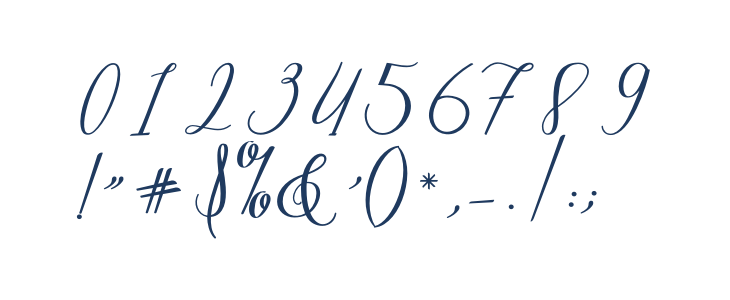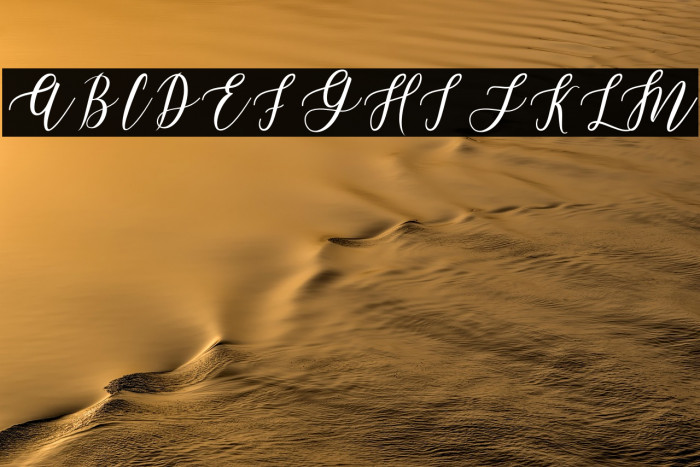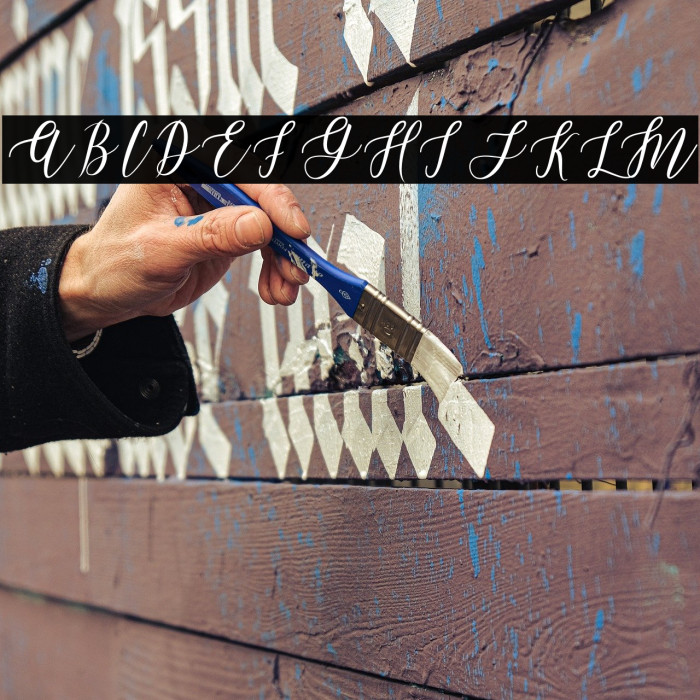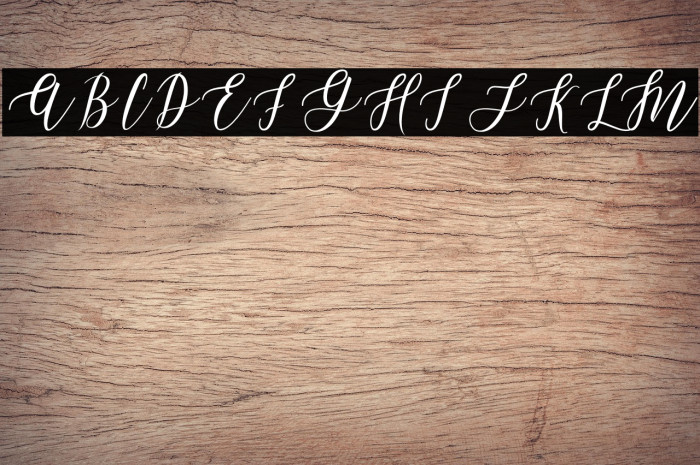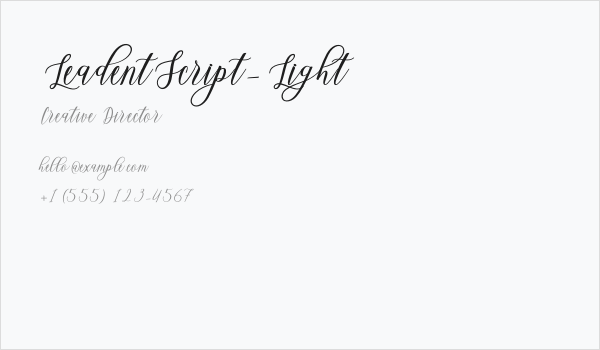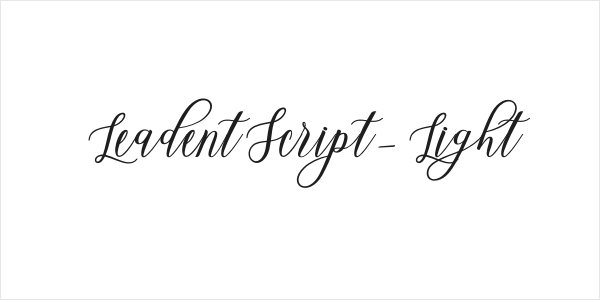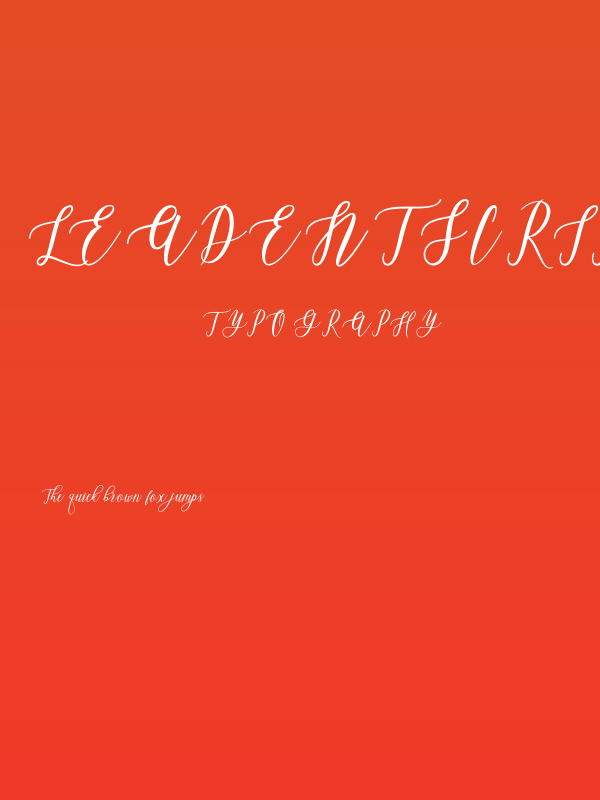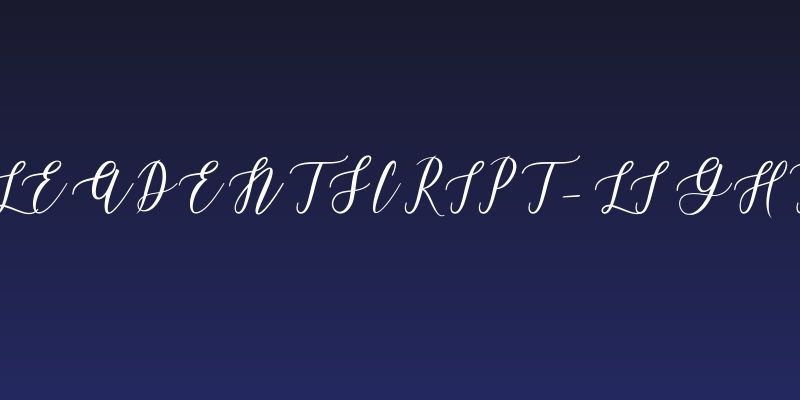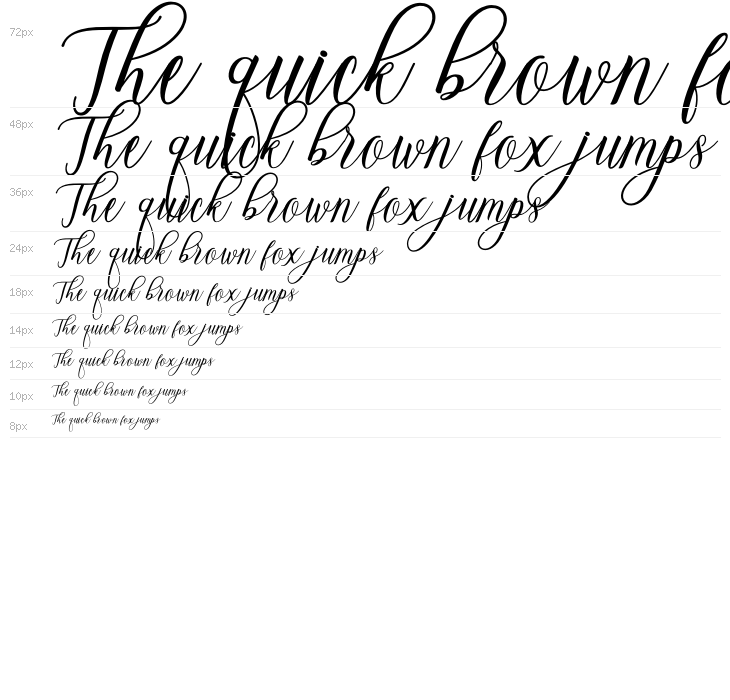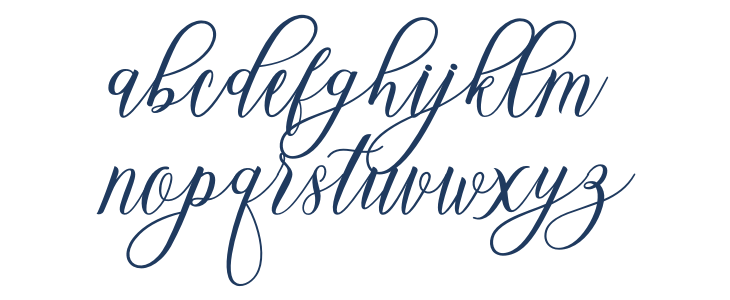
LeadentScript-Light Font
LeadentScript-Light Description
This elegant script font features flowing, interconnected letters with a sophisticated and graceful appearance. The uppercase letters are tall and slender, with delicate loops and flourishes that add a touch of refinement. The lowercase letters maintain a consistent flow, enhancing readability while preserving the font's decorative nature. The numerals are styled to match the script's elegance, with slight curves and a uniform height. Special characters are thoughtfully designed to integrate seamlessly with the overall style, making this font versatile for various uses.
| Overall Style | Elegant |
| Use Case | Logos, Invitations, Decorative text |
| Proposed Projects | Ideal for wedding invitations, elegant branding, personal stationery, and decorative signage. |